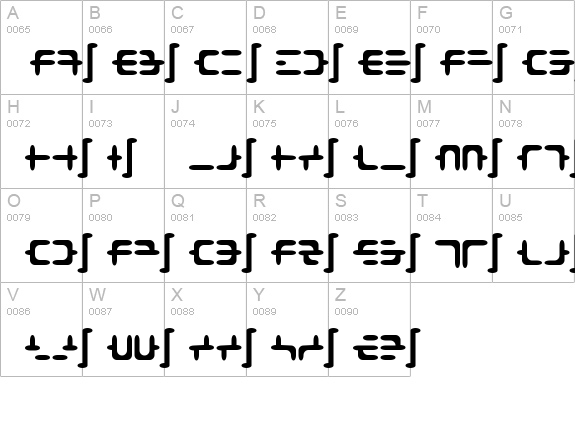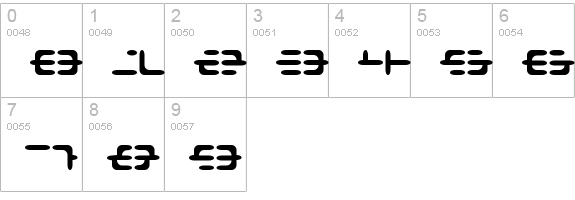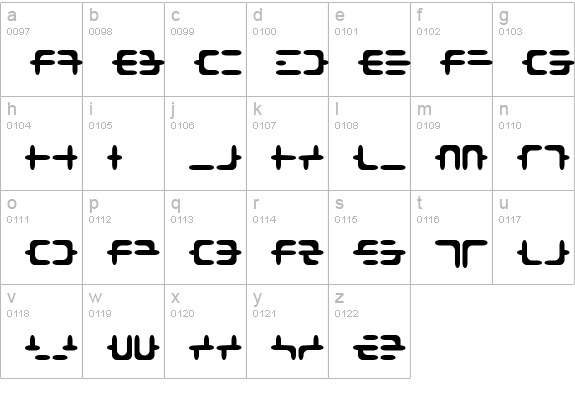
DEOXY Font Details
DEOXY font is a modern and stylish typeface that effortlessly blends elegance with a touch of edginess. Its clean lines and sharp angles make it a versatile choice for a wide range of design projects, from branding to editorial design. With its sleek and contemporary aesthetic, DEOXY font adds a sophisticated flair to any text it graces. The best part? DEOXY font is available for free download at FontsMarket.com. This means you can easily access this stunning typeface without any cost, making it a fantastic addition to your font library. Whether you're a designer looking to elevate your projects or a creative individual seeking a fresh look for your personal creations, DEOXY font is sure to impress with its modern appeal and dynamic presence. Experience the versatility and creativity that DEOXY font has to offer by downloading it today for free at FontsMarket.com.